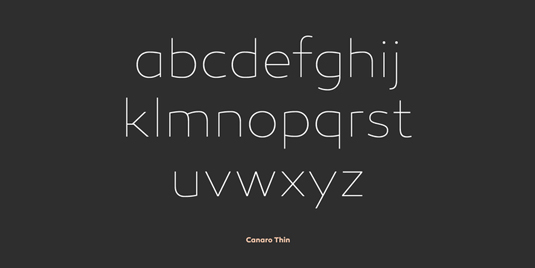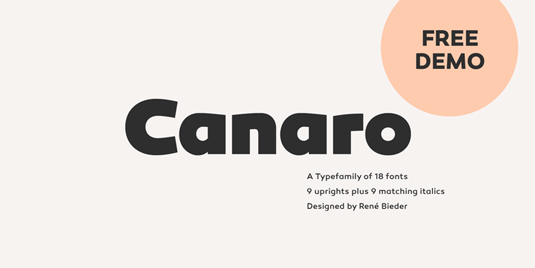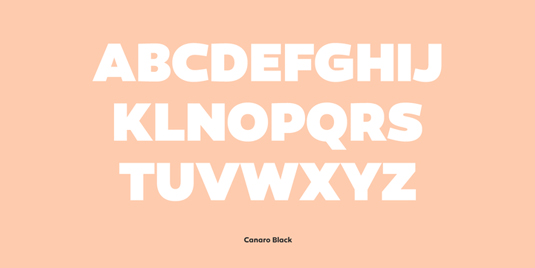
Font of the day: Canaro
Every day we showcase the best fonts on the web. Today it's Canaro by Rene Bieder.
Canaro by Rene Bieder
Berlin-based type designer Rene Bieder is the lady behind today's font of choice Canaro. Available from MyFonts, the design is described as 'an exploration of geometrical typedesigns of the early 20th century, Canaro developed into a font of that period with a modern streak'.